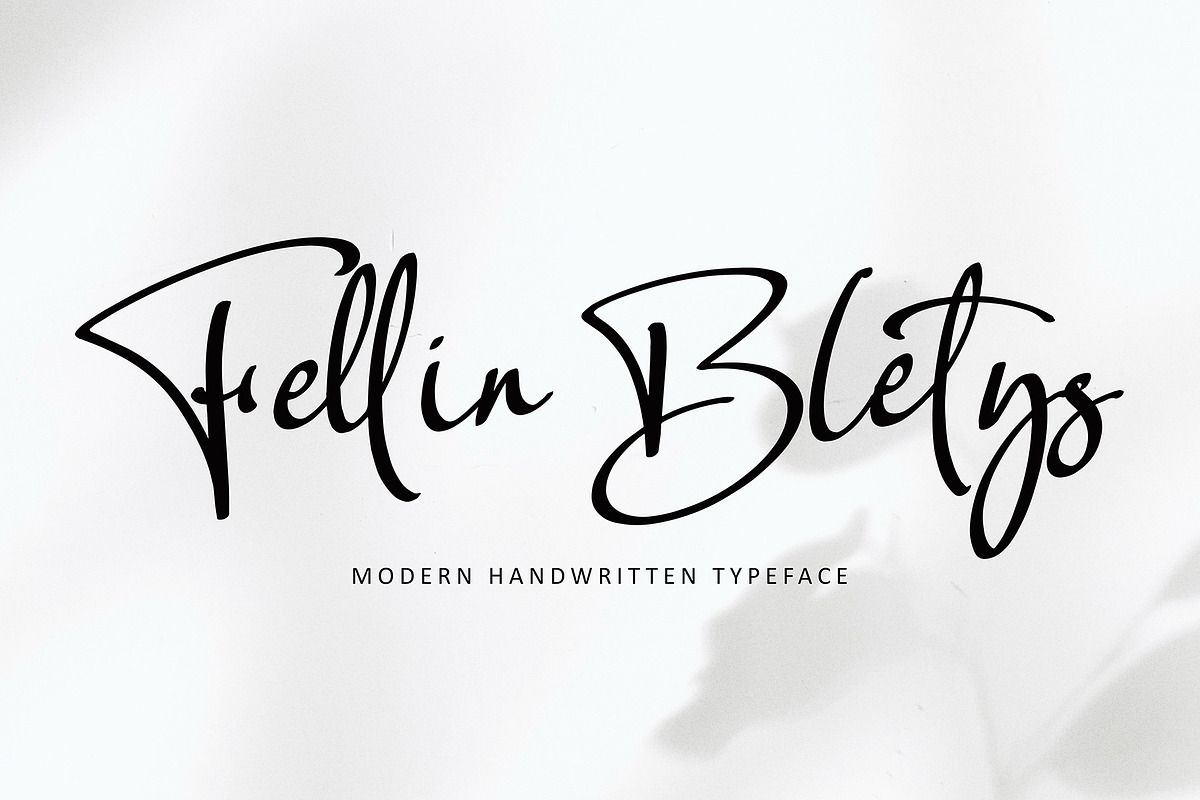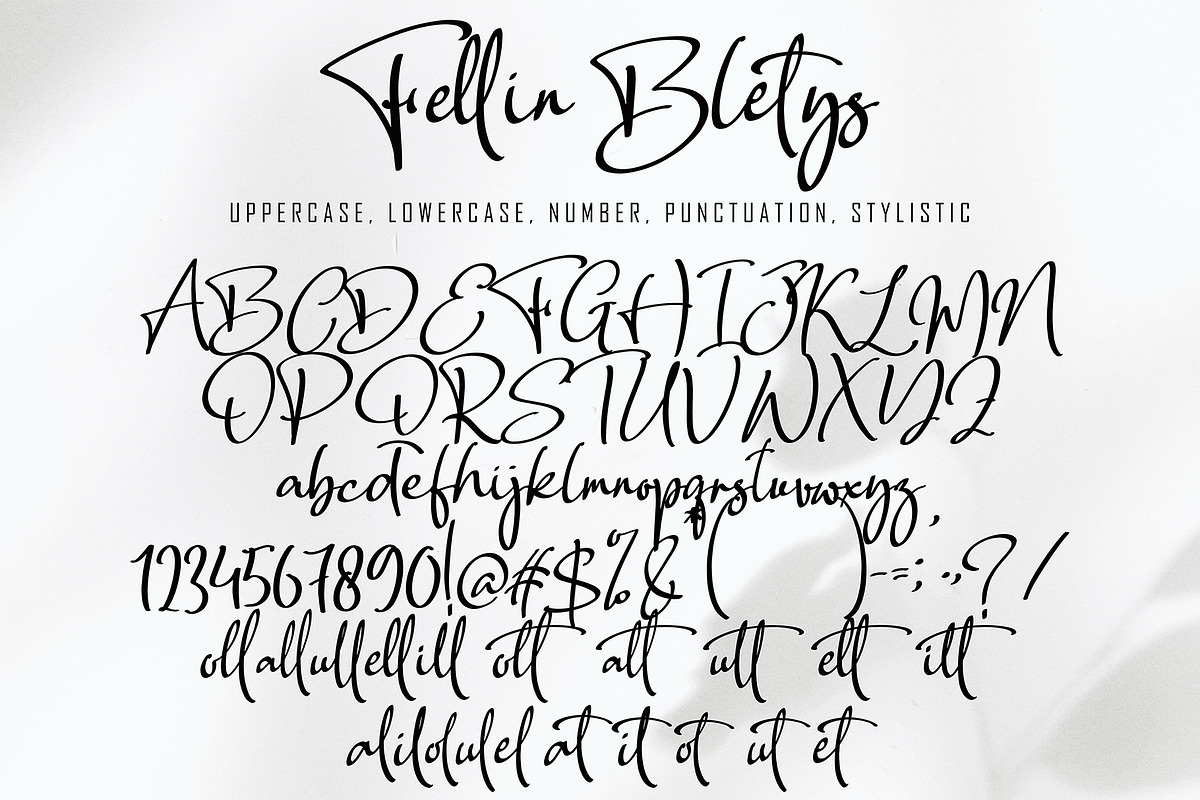
Fellin Blettys
Fellin Blettys font with new style, this font will perfect for many different project ex: quotes, logo, blog header, poster, banding, letter, invitation, stationery, etc...